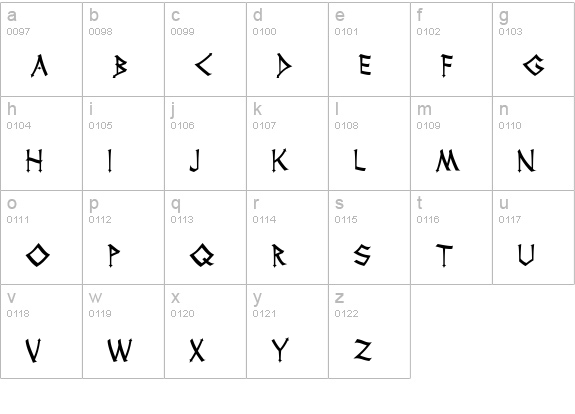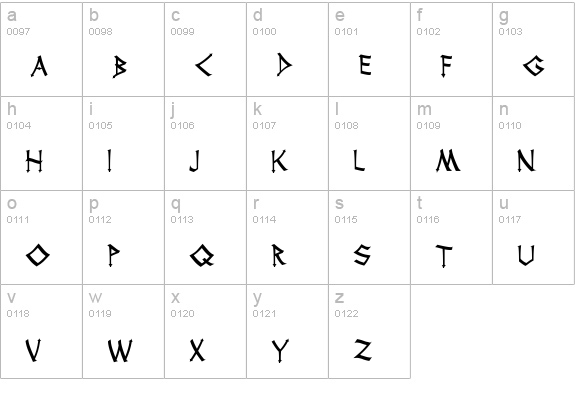
Thor Font Details
Introducing Thor Font, a powerful and captivating typeface that will unleash the thunderous impact of your designs. Inspired by the mighty Norse god of thunder, this font exudes strength, determination, and a touch of ancient mysticism. With its bold and commanding letterforms, Thor Font is perfect for adding an electrifying touch to your branding, headlines, posters, and more. But what sets Thor Font apart from other typefaces? Not only does it possess a striking visual presence, but it also offers something truly special – it's completely free! That's right, Thor Font can be freely downloaded at FontsMarket.com, allowing you to harness its awe-inspiring energy without any cost or limitations. Designed with meticulous attention to detail, Thor Font features sharp edges and intricate lines that reflect the raw power of thunder. Its versatile nature allows it to adapt to various design concepts, whether you're aiming for a modern and edgy look or a more classic and timeless style. Whatever your creative vision may be, Thor Font is here to elevate your projects to new heights. With a wide range of characters and glyphs, Thor Font ensures that every word you type resonates with an intensity that demands attention. Whether you're crafting epic headlines, designing impactful logos, or creating captivating social media posts, this font will infuse your work with an undeniable sense of grandeur and strength. So why wait? Unleash the power of Thor Font and witness how it transforms your designs into something extraordinary. Download this remarkable typeface for free at FontsMarket.com and let your creativity roar like thunder.